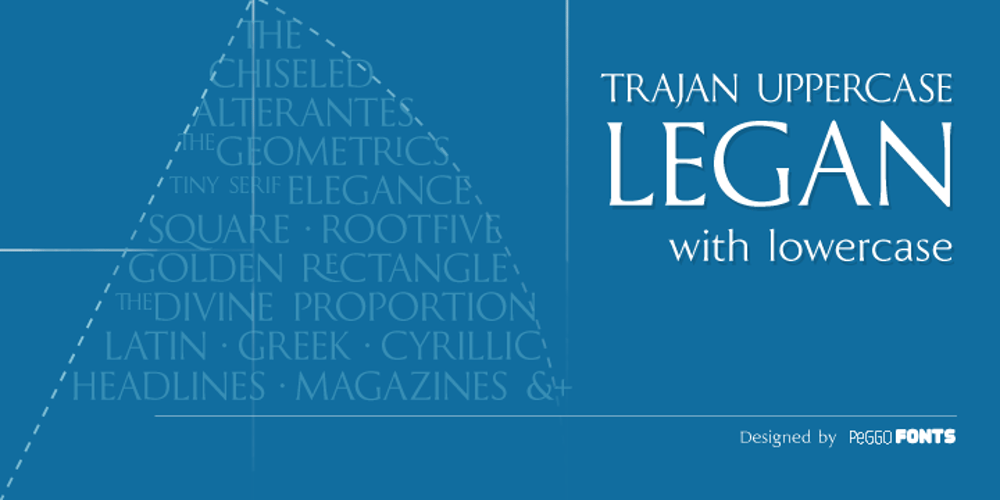
Legan Font Family was designed by Pedro Gonzalez Jorquera and published by PeGGO Fonts. Legan contains 1 styles and family package options. Legan, created by PeGGO Fonts, is a typeface with a large number of glyphs. The uppercase letters follow the classical Trajan pattern. It is designed with several geometrical proportions such as root five, divine proportion (Golden Ratio), regular square, and others, just like the Greek Trajan letters used on Trajan’s Column. The major innovation is a lowercase that is designed in accordance with the same Trajan rules. My concern for the global community is reflected by the large number of diacritics I have provided, first on the basic alphabet, then on extended latin languages, as well as ones for Cyrillic and Greek. Because it is OpenType, there are various setup possibilities including traditional ligatures, as well as various alternates. Altogether you will find this a very playful, fashionable, and elegant typeface.